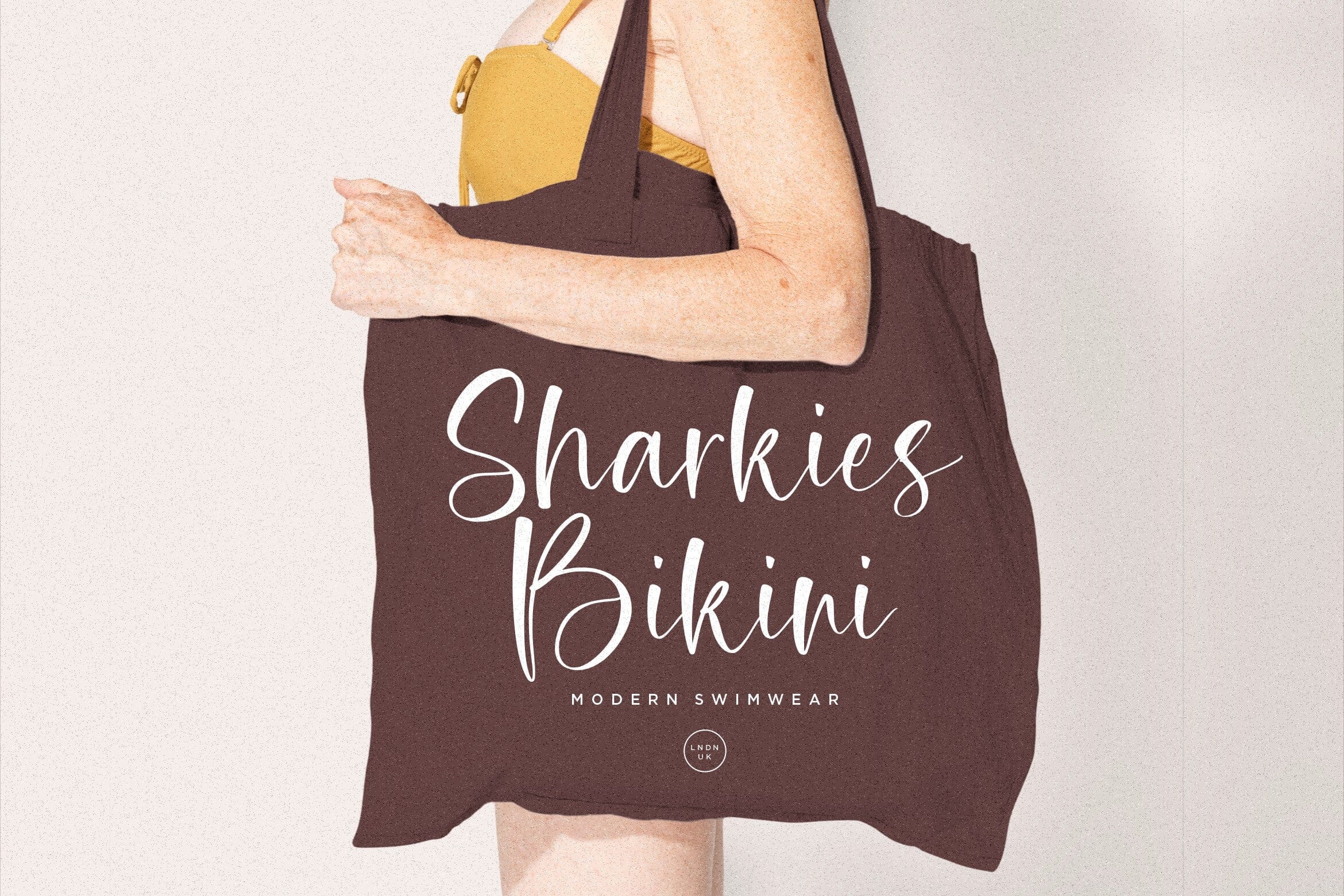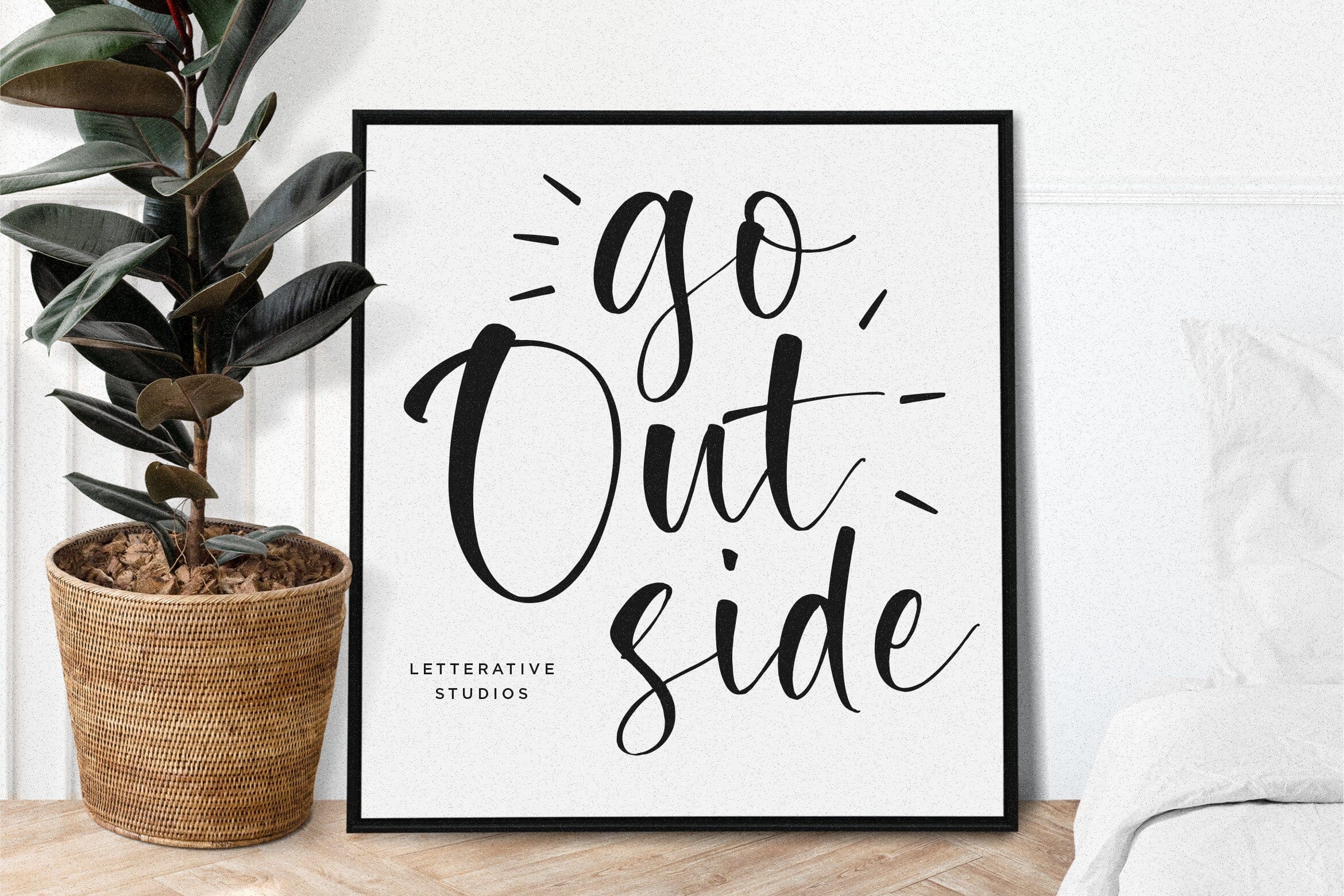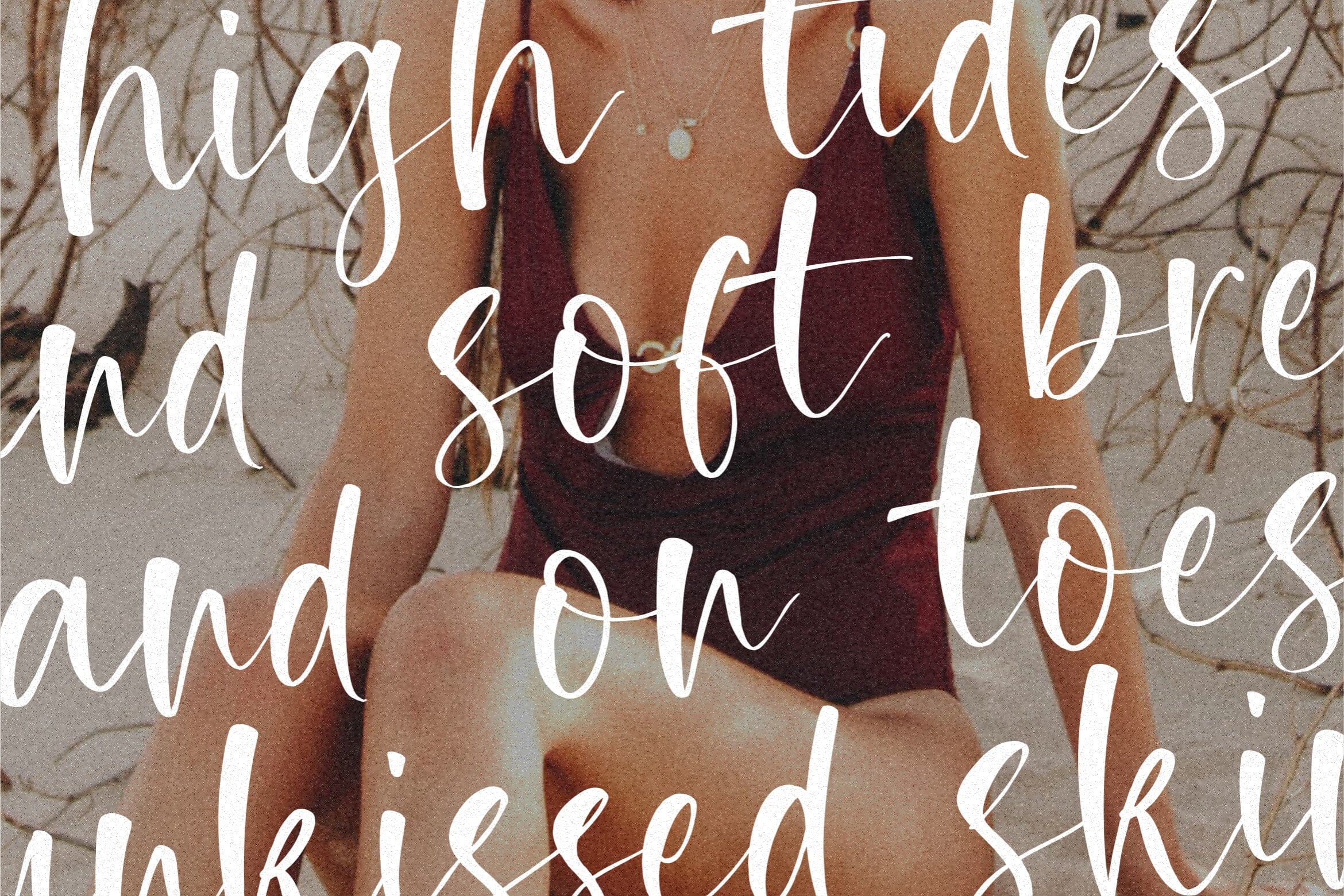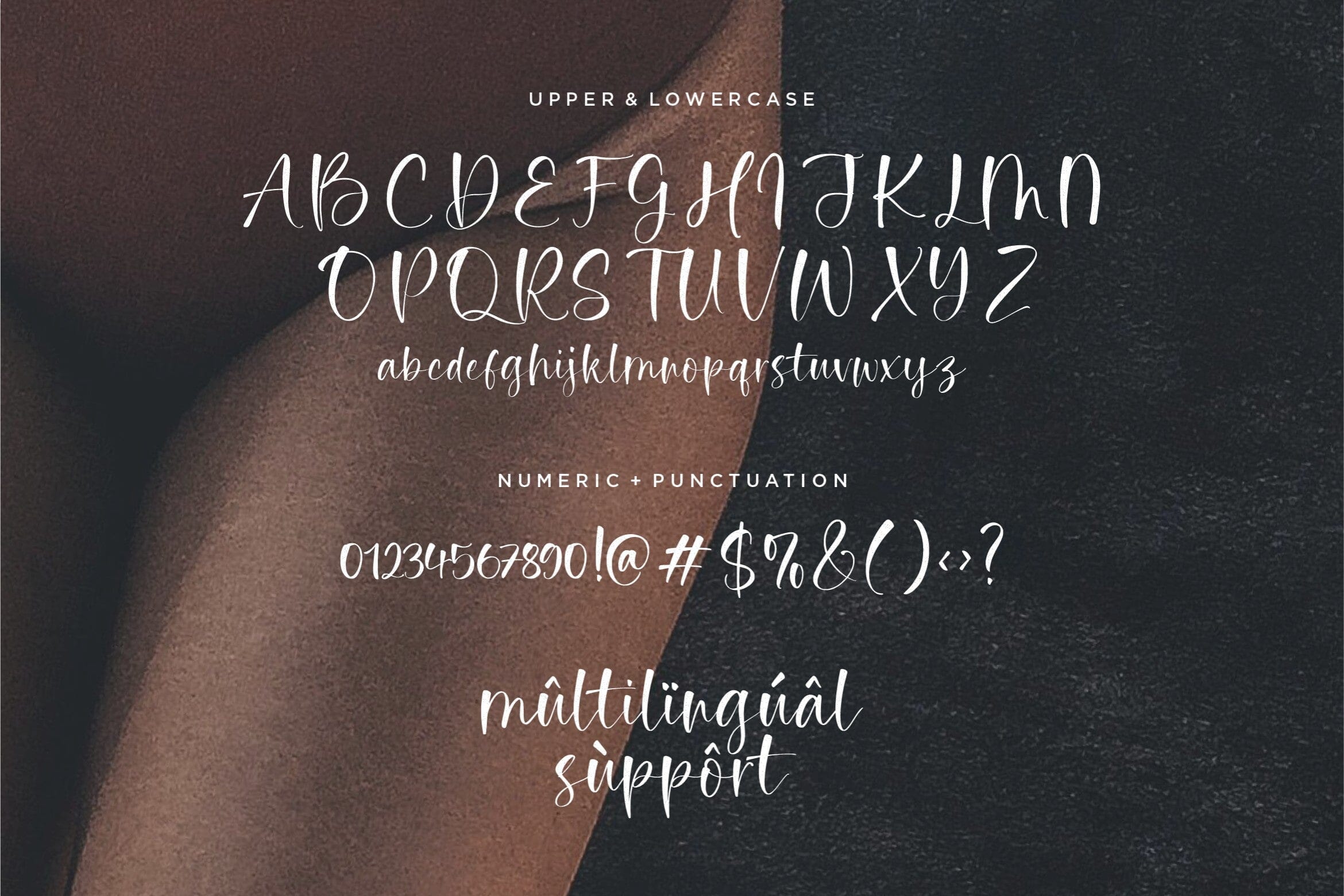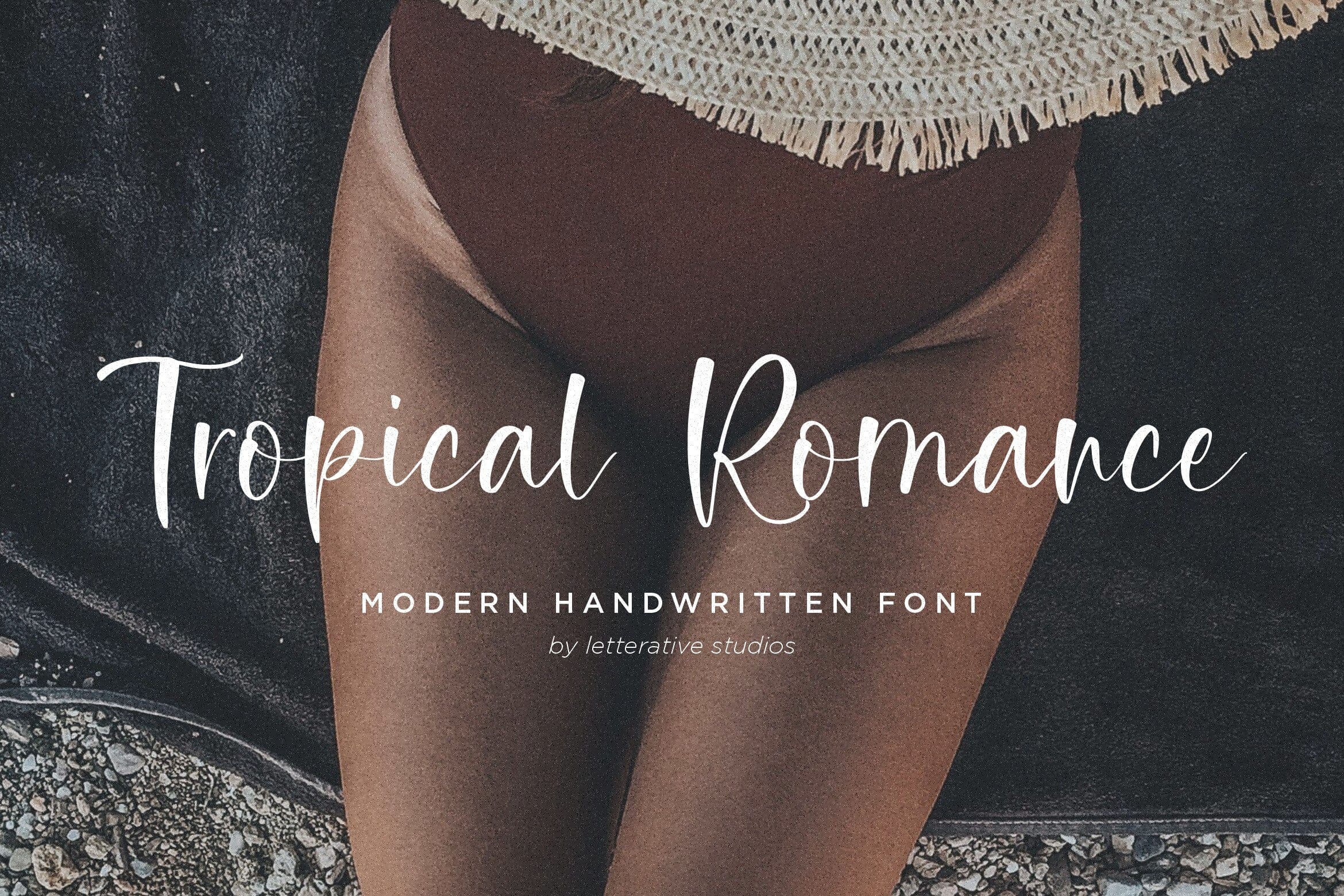
Tropical Romance Modern Handwritten Font
About Tropical Romance Modern Handwritten Font
Introducing by Letterative Studio : Tropical Romance Font Tropical Romance is a Modern Handwritten Font. Whether you’re using it for crafts, digital design, presentations, or making greeting cards, this font has the potential to become your favorite go-to font, no matter the occasion! This font includes : – TTF, OTF and WOFF – also multilingual support Enjoy the font! Feel free to comment or feedback Send me PM or email Thank you!